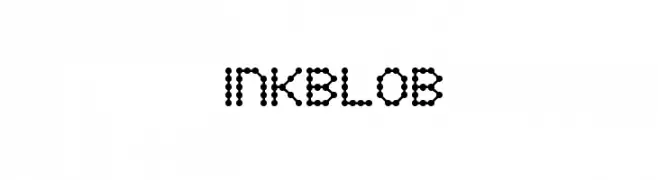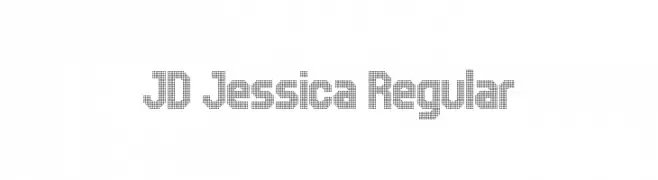
A playful, dotted decorative font with a hand-drawn style.
A bold, decorative font with a dotted pattern, perfect for retro or marquee-style designs.
A bold, decorative font with a unique dotted pattern and strong geometric structure.
A modern, dotted font with a playful and sophisticated style.
A playful, bold font with a bubble-like design and dotted pattern, ideal for fun projects.
A bold, halftone font with a vertical line and dotted pattern for striking visuals.
A modern, dotted font with a playful and digital appearance.
A dotted, marquee-style font with a playful and retro appearance.
A bold, dotted font with a unique, textured appearance.
A bold, playful font with a unique dotted texture inside each character.
A playful, hand-drawn font with a textured, dotted pattern and bold, rounded characters.
A playful dotted font with slanted characters and a cohesive, decorative style.
A bold, retro 3D font with a dotted texture and shadow effect.
A playful, bold font with dotted outlines, perfect for lively and engaging designs.
A playful, patchwork-style font with dotted borders and a handcrafted feel.
A bold, playful font with a dotted pattern and rounded characters.
A bold, decorative font with a 3D shadow and dotted texture.
A bold, italicized font with a 3D effect and dotted texture.
A bold, decorative font with a 3D shadow effect and dotted texture.
A bold, futuristic font with a 3D effect and dotted interior pattern.
A dotted outline font with a playful and modern aesthetic.
A bold, decorative font with a dotted pattern and vintage marquee style.
A bold, vintage-style font with a three-dimensional effect and dotted texture.
A bold, decorative font with a 3D effect and dotted interior pattern.
A bold, decorative font with a 3D effect and dotted texture.
A bold, three-dimensional font with dotted inner detailing and strong shadow effects.
A bold, decorative font with a 3D effect and dotted texture.
A bold, decorative font with a unique dotted border around each character.
A bold, 3D geometric font with a dotted texture and strong visual impact.
A bold, playful font with a 3D effect and dotted texture.
A bold, playful font with a 3D effect and dotted texture, perfect for eye-catching designs.
A bold, italic, 3D font with a dotted texture and thick outlines.
A bold, geometric font with a 3D effect and dotted texture.